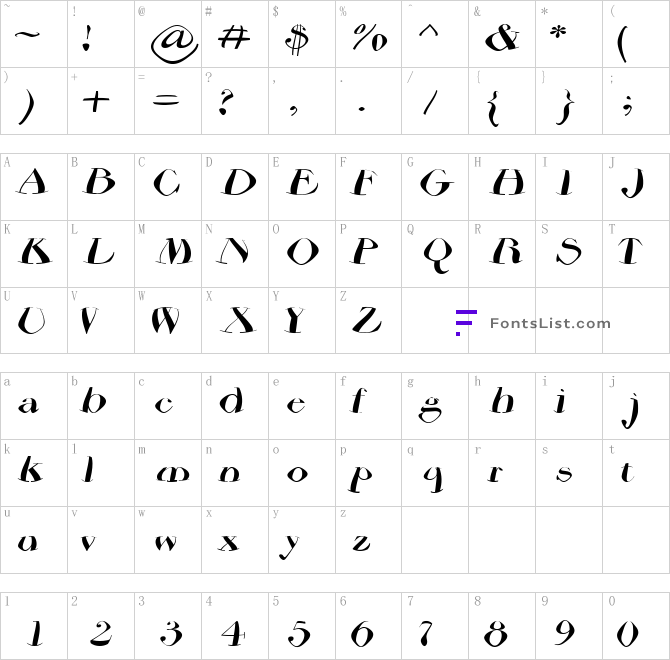
AirdriedParmaFont.ttf is a very beautiful artistic font, AirdriedParmaFont.ttf is widely used in the design and printing of various books and pictures,AirdriedParmaFont.ttf has a strong visual impact,AirdriedParmaFont.ttf is a commonly used font in newspapers, magazines and books, and is used in posters, e-commerce Poster design, store design, logo design, font design and other fields.AirdriedParmaFont.